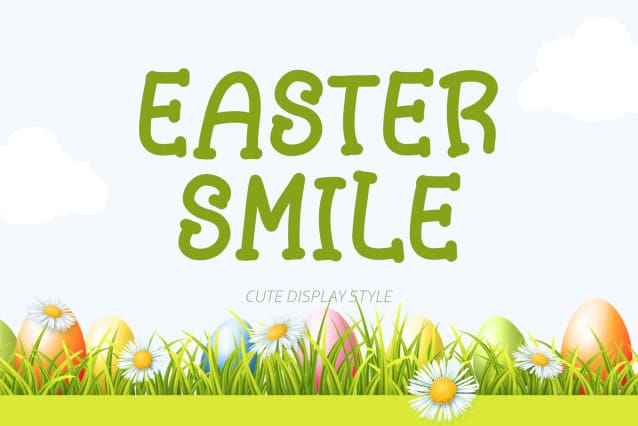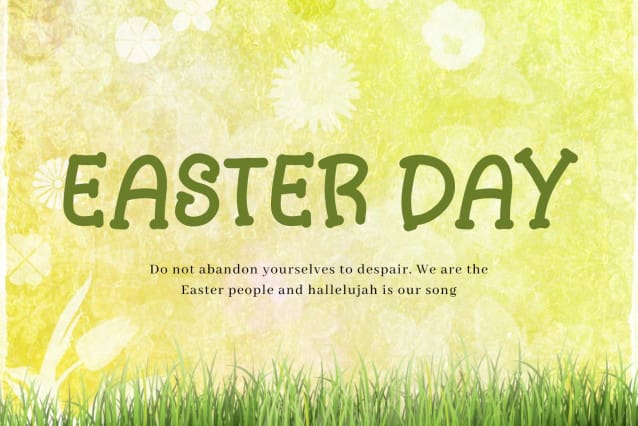
Easter Smile Font
Easter Smile Font is a unique and cute display font. This font is equipped with uppercase, lowercase, numerals, punctuation, and multilingual support. Very suitable for Easter, summer, comics, cartoons, banners, posters, invitations, spring, Christmas, and others.